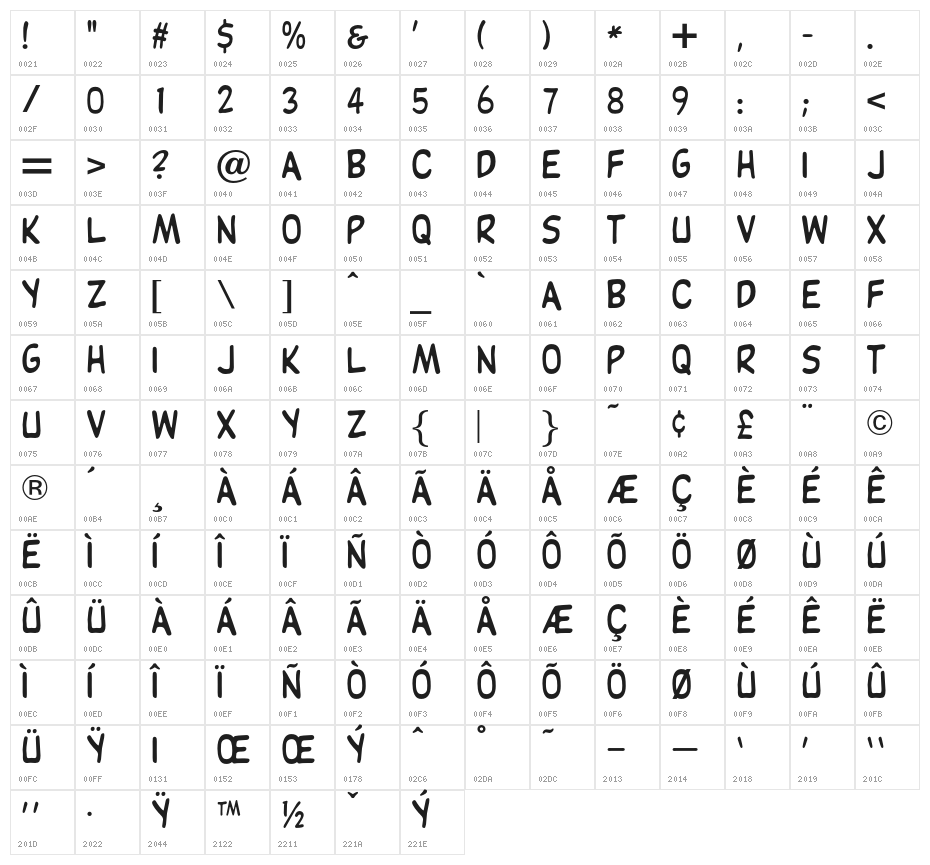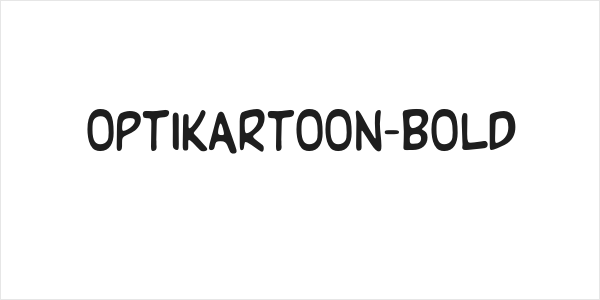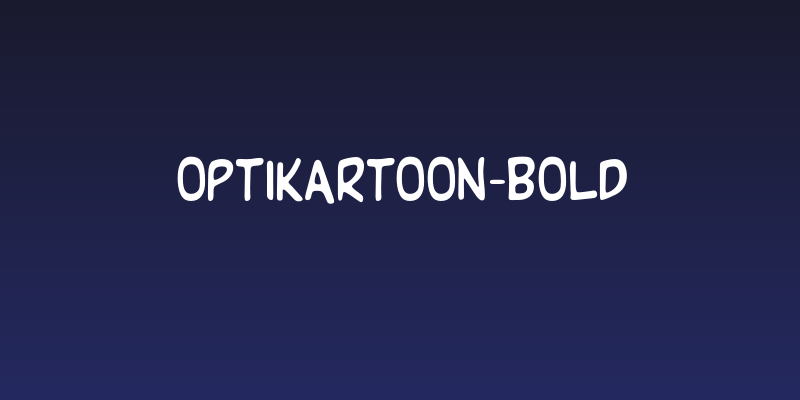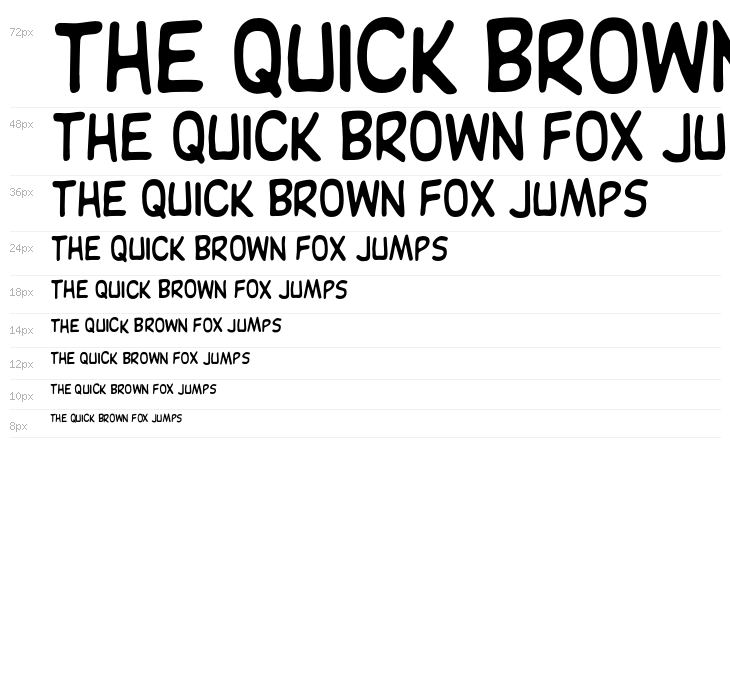
OPTIKartoon-Bold Font
OPTIKartoon-Bold Description
This playful and bold font features rounded, cartoonish characters that convey a sense of fun and whimsy. The letters are thick and slightly irregular, giving them a hand-drawn appearance that adds to their charm. The numbers and special characters maintain the same lively style, making the font versatile for various creative projects. Its boldness ensures readability while the unique style captures attention, making it ideal for designs that aim to be both engaging and approachable.
| Overall Style | Playful, Cartoonish |
| Proposed Projects | Ideal for children's books, comic strips, playful branding, and eye-catching posters. |